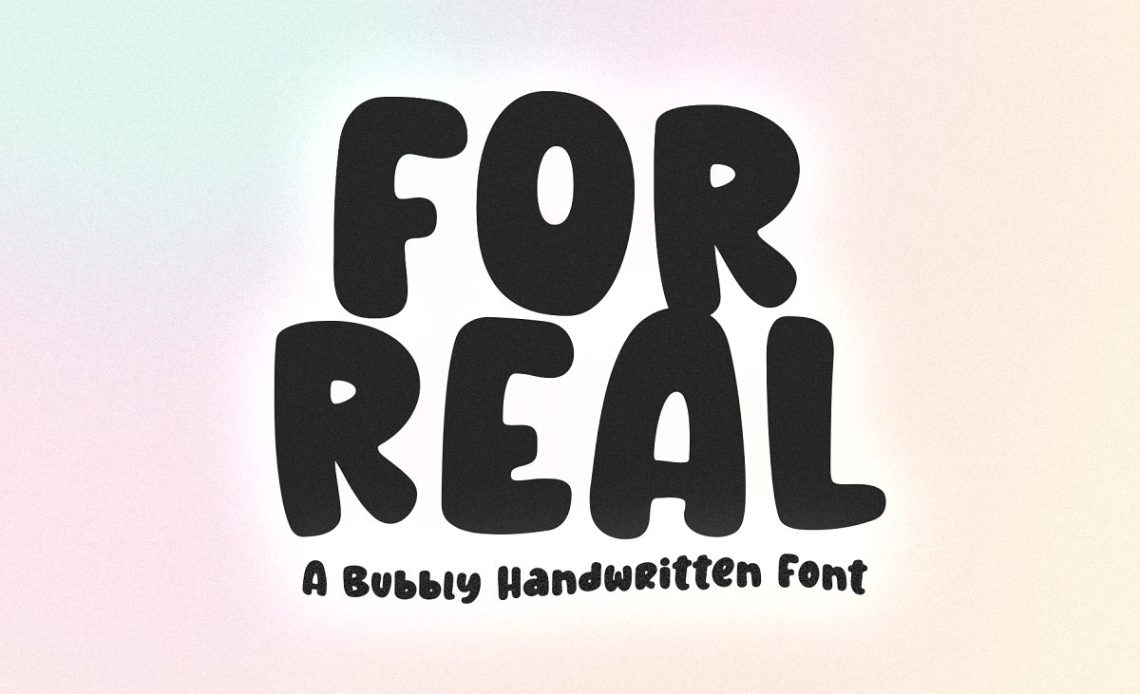
Are you looking for the perfect bubbly handwritten font that's a little bit groovy too? Look no further than For Real, the latest addition to our fonts collection! Created by the talented Kaitlynn Albani, For Real is a font that's sure to catch the eye and elevate your designs to the next level.
For Real is the best font for banner Cricut, and it's easy to see why. This font is perfect for creating retro shirt designs, stickers, phone cases, Instagram quotes, and logos. With its bubbly and playful nature, For Real is versatile and can be used for a wide range of projects. Whether you're a professional graphic designer or just starting out, this font is perfect for all your creative endeavors.
One of the best things about For Real is its ability to evoke emotion and add personality to your designs. Its handwritten nature adds a human touch to your creations, making them more relatable and engaging. With For Real, your designs will stand out from the crowd and leave a lasting impression on your audience.
In conclusion, For Real is the perfect bubbly and groovy handwritten font for all your design needs. With its versatility, emotional appeal, and ease of use, For Real is sure to become your go-to font for all your creative projects. So why wait? Download For Real today and start creating designs that are truly one-of-a-kind.